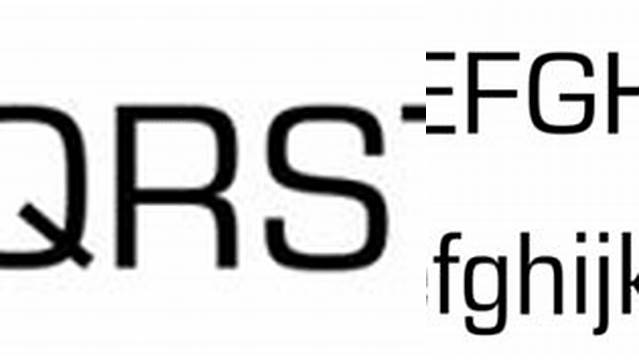
Introduction to Eurostile Next Paneuropean Regular Font
Hey guys! Are you looking for a sleek, modern, and highly legible font for your next design project? Well, look no further! In this comprehensive guide, we're diving deep into the world of Eurostile Next Paneuropean Regular font. This font is not just another typeface; it's a versatile workhorse that can elevate your designs across various mediums. From branding to web design and everything in between, Eurostile Next Paneuropean Regular has got you covered. This article aims to provide you with an in-depth understanding of the font, its history, features, and how you can download it for free. So, buckle up and let’s get started!
The Eurostile Next Paneuropean Regular font is a modern sans-serif typeface that exudes a sense of technical sophistication and contemporary elegance. Its clean lines and geometric shapes make it incredibly versatile for a wide range of design applications. Whether you're working on a website, a poster, or a corporate identity, this font can bring a touch of professionalism and clarity to your work. The design is rooted in the original Eurostile, created by Aldo Novarese in 1962, but the Next Paneuropean version expands on this legacy, offering enhanced legibility and broader language support. This makes it an excellent choice for projects targeting international audiences. Its crisp and uniform letterforms provide excellent readability, even at smaller sizes, which is crucial for body text as well as headlines. The geometric construction lends a futuristic feel, which can be particularly effective in tech-related industries or for projects aiming to convey innovation and modernity. The balanced proportions and even strokes contribute to a harmonious visual texture, making it easy on the eyes and ensuring a polished appearance in any design. The appeal of Eurostile Next Paneuropean Regular lies in its ability to blend functionality with aesthetic appeal. It’s a font that doesn’t shout for attention but quietly commands it through its inherent clarity and sophisticated design. For designers seeking a font that can handle diverse tasks while maintaining a consistent level of quality, Eurostile Next Paneuropean Regular is an invaluable asset. Its neutrality and adaptability mean it can be paired with a variety of other fonts, giving designers the flexibility to create unique and compelling visual hierarchies. So, if you’re aiming for a typeface that combines timeless appeal with contemporary relevance, Eurostile Next Paneuropean Regular is definitely worth exploring. Its broad applicability and inherent elegance make it a standout choice in the vast landscape of modern fonts.
History and Evolution of Eurostile Font
The history of Eurostile font is quite fascinating. It all started in 1962 when the talented Aldo Novarese designed the original Eurostile. Novarese, an Italian type designer, created this font for one of the most prestigious foundries in Italy, Nebiolo. His inspiration came from the geometric sans-serif style that was gaining popularity at the time. But what made Eurostile stand out was its unique rectangular shapes and the way it exuded a sense of modernity and technological advancement.
Novarese's vision for Eurostile was to create a typeface that felt both contemporary and functional. The font's design, characterized by its clean lines and squared-off letterforms, was a reflection of the modernist aesthetic that was prevalent in architecture and design during the mid-20th century. This style conveyed a sense of efficiency and precision, making it a perfect fit for signage, headlines, and technical documentation. Its distinct appearance quickly made it a favorite in various industries, including transportation, telecommunications, and technology. The font's geometric simplicity lent itself well to industrial design and corporate branding, where clear and direct communication was paramount. Eurostile's success was also driven by its strong visual impact. The bold, uniform strokes and distinctive letter shapes made it highly legible, even at a distance. This was particularly important for applications such as airport signage and public transportation systems, where quick and easy readability was crucial. Over the years, Eurostile became synonymous with a forward-thinking and modern approach, often used in contexts that wanted to project an image of innovation and progress. Its enduring appeal is a testament to Novarese's skill in capturing the spirit of his time and creating a typeface that continues to resonate with designers today. The font's ability to convey a sense of modernity, clarity, and efficiency has solidified its place as a classic in the world of typography. Eurostile's legacy is not just about its visual characteristics but also about its ability to communicate specific values and ideas. This makes it a powerful tool for designers seeking to convey a particular message or brand identity. Its continued use in a wide range of applications demonstrates its timeless quality and enduring relevance in the ever-evolving field of graphic design. The evolution of Eurostile from its initial conception to its current status as a widely recognized and respected typeface is a story of design excellence and adaptability.
Over the years, Eurostile has evolved, with different versions and weights being developed to cater to a broader range of design needs. The Eurostile Next Paneuropean Regular, which we're focusing on today, is one such evolution. This version expands on the original design by offering enhanced legibility and broader language support. It’s a testament to the font’s enduring appeal and adaptability. The development of Eurostile Next Paneuropean Regular was driven by the need for a typeface that could meet the demands of a global audience. As design became increasingly international, the limitations of the original Eurostile, particularly in terms of language support, became apparent. The Next Paneuropean version addresses these limitations by including a wider range of characters and glyphs, allowing it to be used effectively in various languages and scripts. This expansion not only broadened the font's applicability but also enhanced its legibility across different writing systems. The design refinements in Eurostile Next Paneuropean Regular also focused on improving the overall reading experience. Adjustments were made to the letter spacing and proportions to ensure that the font remained clear and easy to read in a variety of contexts, from print to digital media. The updated version maintains the geometric and modernist aesthetic of the original while optimizing it for contemporary design practices. This balance between honoring the legacy of Eurostile and adapting to modern needs is a key aspect of its success. The font's evolution reflects a commitment to both visual excellence and functional performance. Eurostile Next Paneuropean Regular is a prime example of how a classic typeface can be updated and refined to meet the evolving demands of the design industry. Its ability to seamlessly blend historical roots with modern requirements makes it a valuable tool for designers seeking a versatile and reliable font solution. The improvements and expansions incorporated in the Next Paneuropean version ensure that Eurostile remains a relevant and compelling choice for a wide range of projects, solidifying its position as a timeless design asset.
Key Features of Eurostile Next Paneuropean Regular
So, what makes Eurostile Next Paneuropean Regular so special? Let's dive into its key features. First and foremost, it's a sans-serif font, which means it lacks the small decorative strokes (serifs) that you find in fonts like Times New Roman. This gives it a clean, modern look. Its geometric design is another standout feature. The letterforms are based on simple geometric shapes, giving the font a structured and technical feel. This makes it particularly suitable for projects that need to convey a sense of precision and efficiency.
The geometric construction of Eurostile Next Paneuropean Regular is a defining characteristic that contributes significantly to its overall aesthetic and functionality. The font's letterforms are built on basic shapes such as squares, rectangles, and circles, which gives it a sense of order and clarity. This geometric precision not only enhances the visual appeal but also improves legibility, as the uniform shapes create a consistent rhythm across the text. The absence of serifs further emphasizes the clean lines and modern appearance, making it a versatile choice for a variety of design applications. This design approach also allows the font to scale well, maintaining its clarity and impact whether used in large headlines or smaller body text. The geometric elements contribute to a strong visual structure, ensuring that the font remains legible even in challenging conditions or at a distance. This makes it particularly suitable for signage, branding materials, and digital interfaces, where clarity is paramount. The structured nature of the font also makes it easy to pair with other typefaces, offering designers flexibility in creating visual hierarchies and balanced layouts. Eurostile Next Paneuropean Regular's geometric design is not just a stylistic choice; it is a functional feature that enhances its readability and adaptability. This combination of aesthetic appeal and practical utility is what makes it a standout typeface in the world of graphic design. The font’s ability to convey a sense of precision and modernity through its geometric forms ensures its relevance in a wide range of contemporary design projects. Its clean, uncluttered appearance makes it an excellent choice for any application where clarity and efficiency are key considerations. The thoughtful application of geometric principles in its design is a hallmark of Eurostile Next Paneuropean Regular, contributing to its enduring appeal and widespread use.
Another crucial aspect is its Paneuropean support. This means it includes characters for a wide range of European languages, making it an excellent choice for international projects. You won't have to worry about missing characters or awkward substitutions when working with different languages. This extensive language support is a significant advantage for designers working on global projects, ensuring consistency and professionalism across various language settings. The inclusion of a broad character set allows Eurostile Next Paneuropean Regular to be used effectively in multilingual environments, without compromising on readability or visual harmony. This capability is particularly valuable in today's interconnected world, where design projects often need to cater to diverse audiences and linguistic needs. The Paneuropean support encompasses a wide range of Latin-based languages, making it a versatile tool for international branding, marketing materials, and digital communications. This ensures that the font can maintain its integrity and aesthetic appeal, regardless of the language being used. The comprehensive character set also reduces the need for fallback fonts, which can often disrupt the visual consistency of a design. Eurostile Next Paneuropean Regular's commitment to linguistic inclusivity makes it a practical and reliable choice for any project that aims to reach a global audience. This feature not only enhances its usability but also underscores its relevance in a diverse and multicultural design landscape. The font’s ability to seamlessly integrate different languages within a single design is a testament to its thoughtful construction and its dedication to meeting the needs of modern designers. Its Paneuropean support is a key factor in its widespread adoption and its continued popularity among design professionals.
Legibility is also a top priority. Eurostile Next Paneuropean Regular is designed to be easy to read, even at small sizes. This makes it suitable for body text as well as headlines. The uniform stroke weight and clear letterforms contribute to its excellent readability. The designers behind Eurostile Next Paneuropean Regular placed a significant emphasis on legibility, understanding its crucial role in effective communication. The uniform stroke weight throughout the font ensures that each character has a consistent appearance, contributing to a smooth and even reading experience. This uniformity helps to prevent visual clutter and makes the text easier to scan and comprehend. The clear letterforms, with their distinct shapes and ample spacing, further enhance legibility, even at small sizes or in challenging conditions. This is particularly important for body text, where sustained readability is essential for engaging the reader. The font’s design minimizes ambiguity between characters, reducing the risk of misinterpretation and ensuring that the message is conveyed accurately. The careful attention to detail in the letterforms and spacing reflects a commitment to functional design, where readability is paramount. Eurostile Next Paneuropean Regular's legibility extends to both print and digital media, making it a versatile choice for a wide range of applications. Whether used on a website, in a brochure, or on signage, the font maintains its clarity and impact. This consistent readability across different platforms ensures that the message remains clear and accessible to the audience. The font’s focus on legibility is a key factor in its widespread adoption and its reputation as a reliable and effective typeface. Its ability to communicate clearly and efficiently makes it an invaluable tool for designers and communicators alike. The combination of uniform stroke weight, clear letterforms, and thoughtful spacing makes Eurostile Next Paneuropean Regular a standout choice for any project where readability is a primary concern.
Where to Use Eurostile Next Paneuropean Regular
Now that you know what makes Eurostile Next Paneuropean Regular so great, let's talk about where you can use it. This font is incredibly versatile, making it suitable for a wide range of applications. Think about branding – Eurostile Next Paneuropean Regular can give your brand a modern, professional look. Its clean lines and geometric shapes convey a sense of sophistication and reliability, making it ideal for corporate identities, logos, and marketing materials. For businesses looking to project an image of innovation and efficiency, this font is an excellent choice.
So there you have it – a comprehensive guide to Eurostile Next Paneuropean Regular font! This versatile typeface is a fantastic addition to any designer's toolkit. Its modern aesthetic, legibility, and Paneuropean support make it suitable for a wide range of projects. Remember to always check the licensing terms before using any font, and you'll be well on your way to creating stunning designs with Eurostile Next Paneuropean Regular. Happy designing, guys!